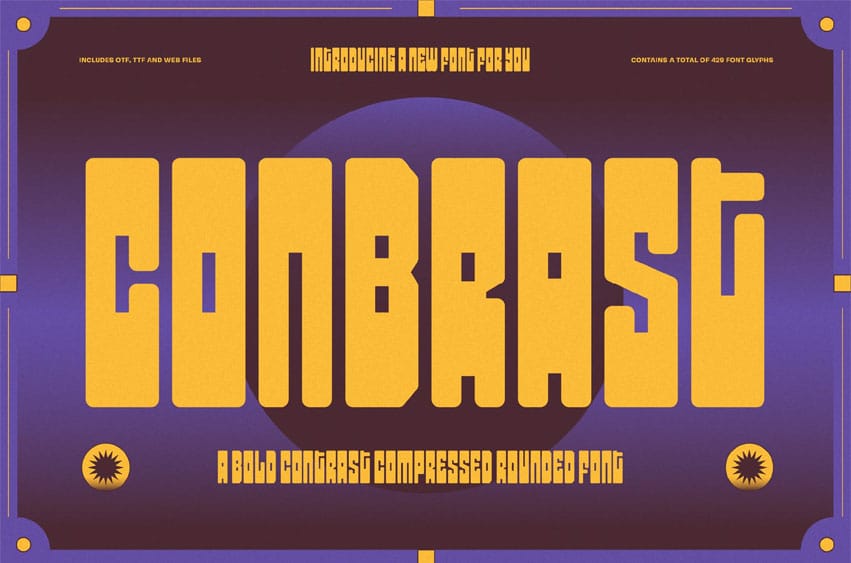
Conbrast Font is a condensed bold font with precise geometric proportions and striking forms. Ideal for headlines, posters, branding, and designs that need a bold, standout look.
It is perfect for headlines, logotypes, magazines, packaging, quotes, movies, games, cover albums, book covers, and flyers. It’s a perfect solution for creating eye-catching designs that stand out in any context.